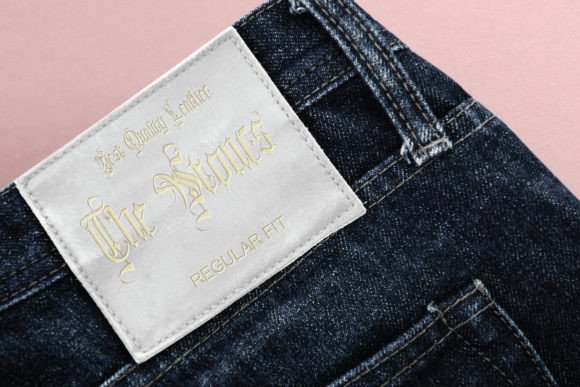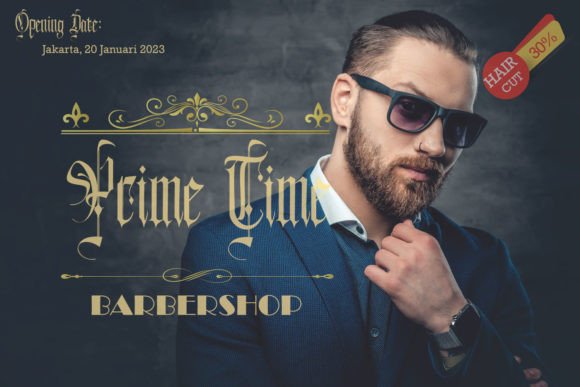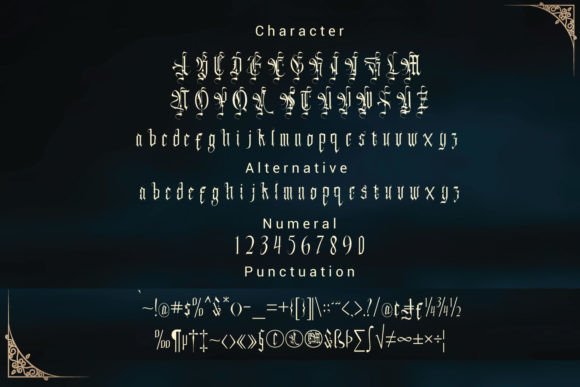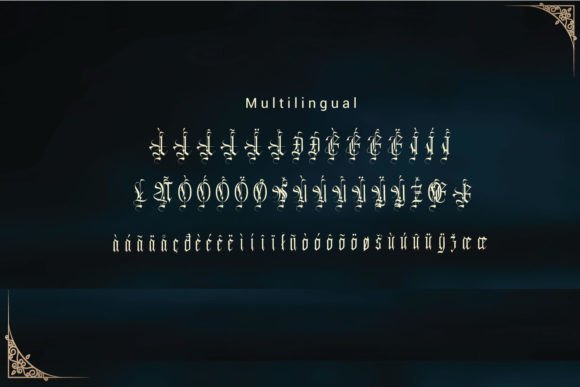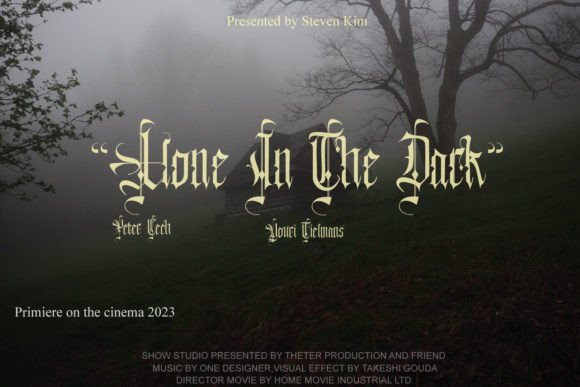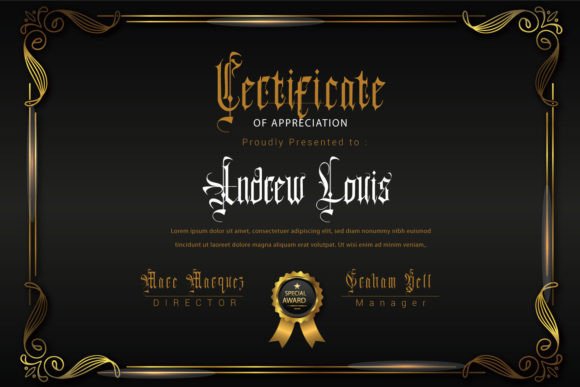
The Perfect Font for the Bold and the Brave
Imagine you’re brainstorming a new logo for your favorite heavy metal band or a mysterious novel cover – you want something that exudes darkness and power, something that makes the viewer sit up and take notice. That’s where Ancient Funeral Font comes in, a stunning blackletter typeface that’s sure to make your design projects stand out from the crowd.
With its unique Gothic style, Ancient Funeral Font is the perfect choice for any project that requires a touch of the dramatic and the daring. Whether you’re a seasoned designer or just starting out, this font is a valuable addition to your toolkit – and its versatility makes it suitable for everything from album covers to book titles.
Ancient Funeral Font Key Features
- Font Family: Ancient Funeral is a unique, hand-drawn font family designed for historical and cultural contexts, specifically for ancient funeral inscriptions.
- Unique Characteristics: Ancient Funeral Font features intricate, hand-drawn designs and ornate details, making it ideal for creating a sense of nostalgia and historical depth in designs.
- Support for Languages: The font supports a wide range of languages, including Latin, Greek, and Cyrillic alphabets, making it suitable for various historical and cultural contexts.
- Customization Options: Ancient Funeral Font offers a range of customization options, including ligatures, swashes, and ornaments, allowing designers to add a personal touch to their designs.
Designer Review: Ancient Funeral Font
I recently had the chance to work with the Ancient Funeral Font, and I’m sharing my honest thoughts on this unique font.
- Uniqueness: Ancient Funeral Font is a one-of-a-kind font that immediately grabs attention.
- Emotional Connection: The distressed, ancient look creates an eerie atmosphere, perfect for horror or mystery-themed projects.
- Flexibility: It works well for both digital and print materials, from book covers to posters.
Limitsations ⚠️
- Limited Character Set: The font has a limited character set, which can be restrictive for longer texts.
- Difficult to Read: Due to its distressed nature, the font can be challenging to read, especially for those with visual impairments.
Overall, I’d say the Ancient Funeral Font is a great choice for projects that require a unique, attention-grabbing look. However, its limitations should be considered before making a final decision. With some careful planning and text manipulation, this font can be a valuable addition to your design toolkit.
To get the most out of the Ancient Funeral Font, consider the following tips:
- Use the font in conjunction with other distressed or vintage fonts for a unique look.
- Use the font in combination with graphics and images to add depth and context.
The Ancient Funeral Font is commonly used in:
- Historical or vintage-themed designs.
- Graveyard or
Q: Are there any design guidelines for using the Ancient Funeral Font effectively?
Yes, we recommend using the Ancient Funeral Font in conjunction with a serif or script font to create a balanced and harmonious typographic hierarchy. Avoid using the font for body text, as its unique style is best suited for headings, titles, and decorative elements. Additionally, consider using the font in combination with a subtle texture or gradient to enhance its nostalgic and ancient feel.